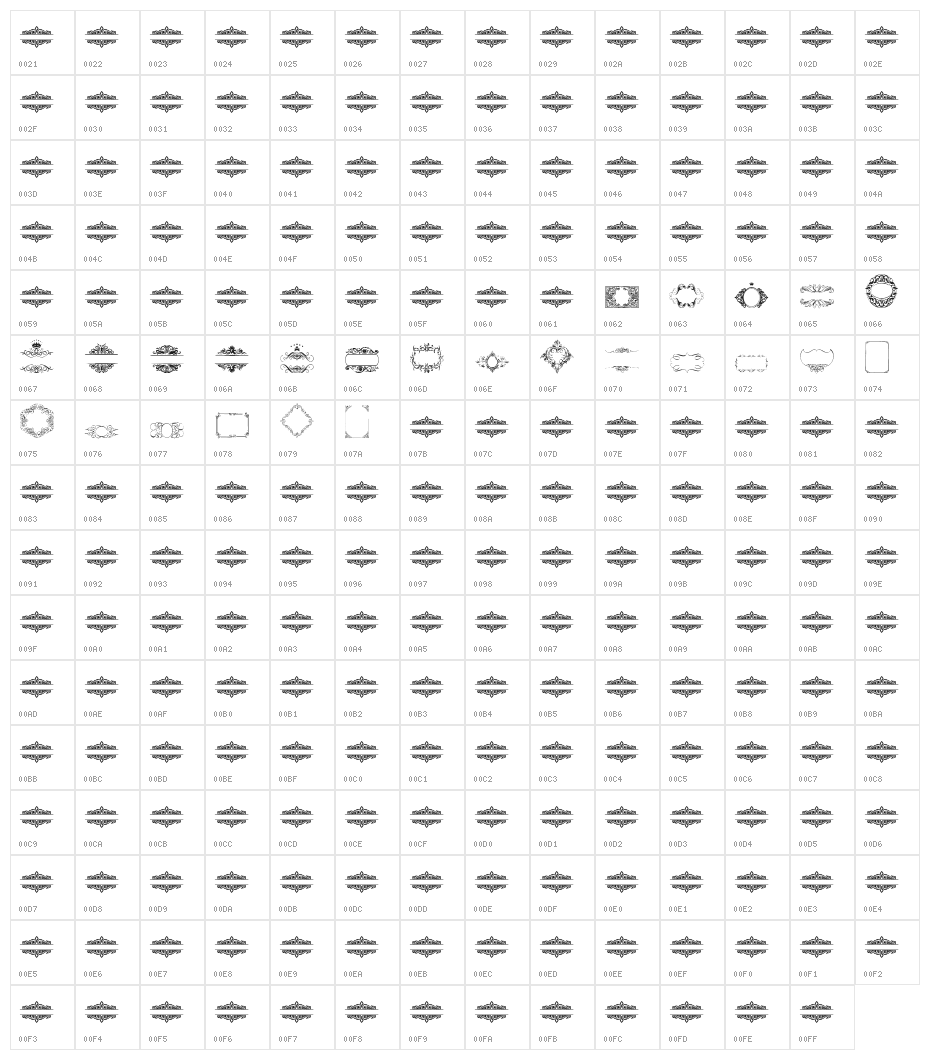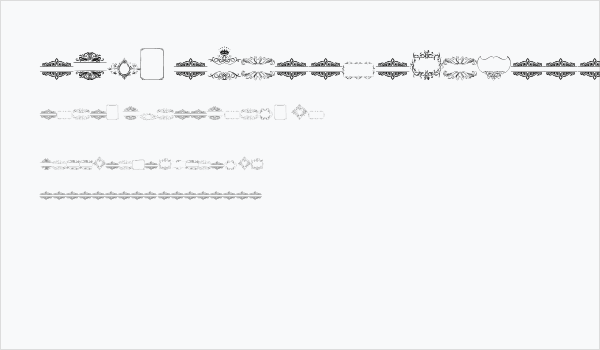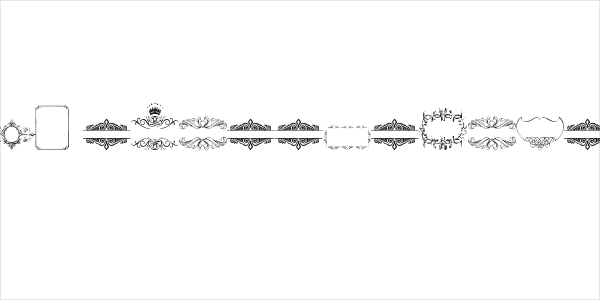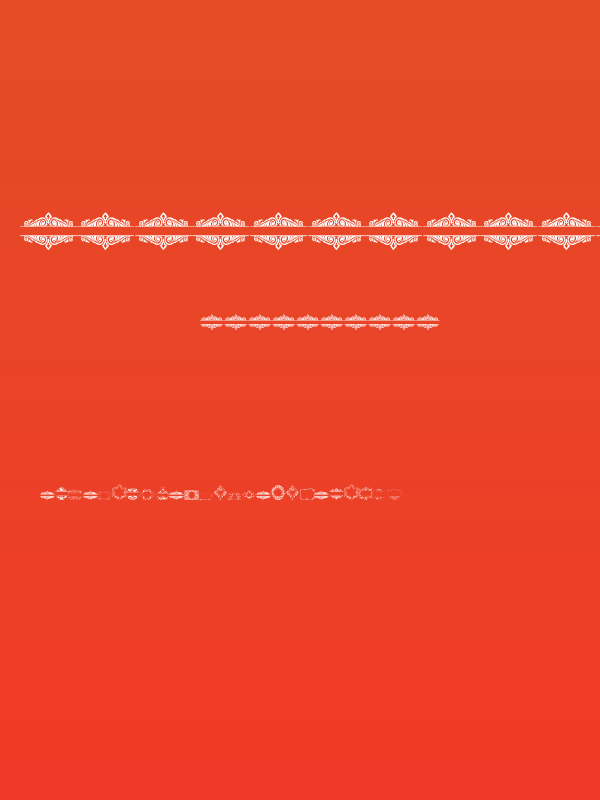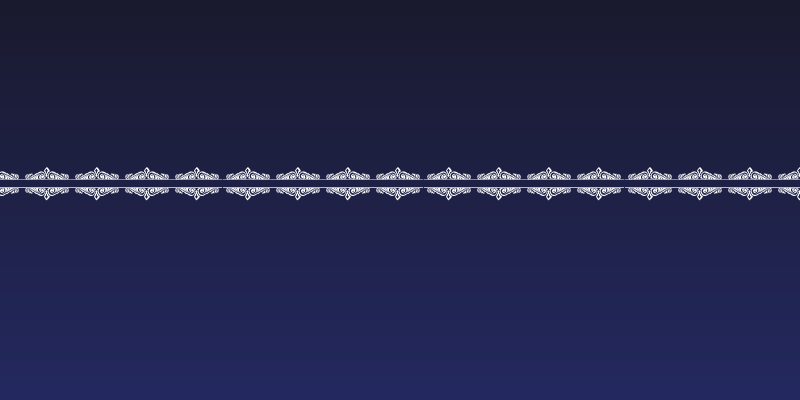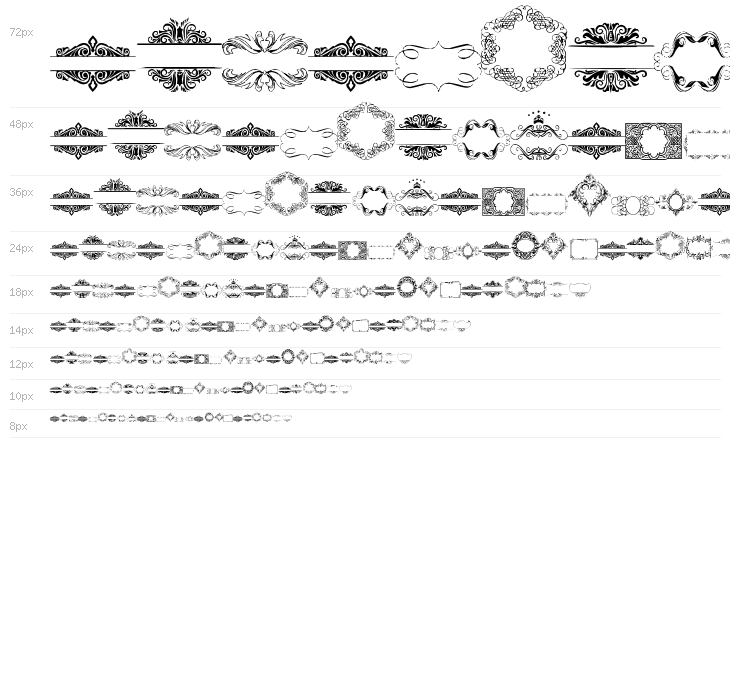
Vintage Frames 13 Font
Vintage Frames 13 Description
A collection of highly detailed, ornate vintage frames and decorative borders with intricate flourishes and symmetrical patterns, evoking a classic and elegant aesthetic.
| Overall Style | Vintage, Decorative, Elegant |
| Use Case | Frames, Borders, Decorative accents |
| Proposed Projects | Wedding invitations, certificates, luxury packaging, vintage posters, decorative labels, book covers. |